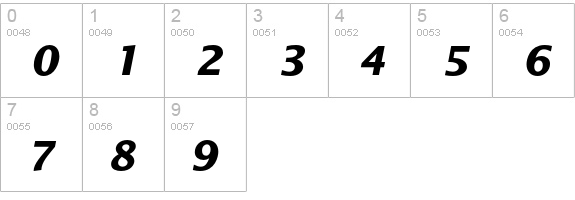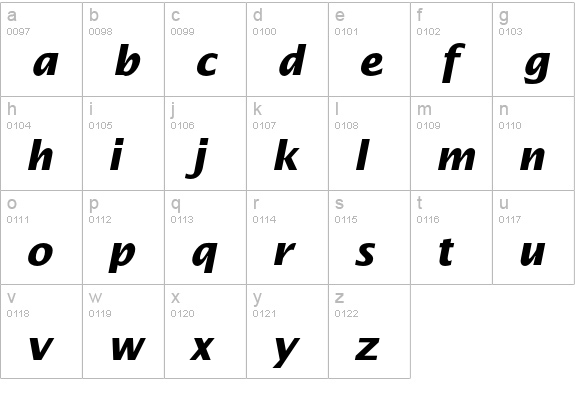
Lucida Sans Std Bold Italic is a strong, high-contrast, italic variant in the Lucida typeface family \xE2\x80\x94 well suited to headlines, attention-grabbing titles, and strong calls-to-action.
Lucida Sans Std Bold Italic is a sleek and modern font that exudes confidence and sophistication. Its bold and italic styling adds a touch of elegance to any design, making it perfect for headings, titles, and emphasis in text. The strong and clear letterforms make it easy to read, while the italicized slant adds a dynamic and stylish flair. Best of all, Lucida Sans Std Bold Italic is available for free download at FontsMarket.com. This means you can easily access this versatile and eye-catching font for all your design needs without any cost. Whether you're working on a professional project, personal creative endeavor, or anything in between, Lucida Sans Std Bold Italic is a fantastic choice that will elevate your design to the next level. Download it today and add a touch of bold sophistication to your typography!